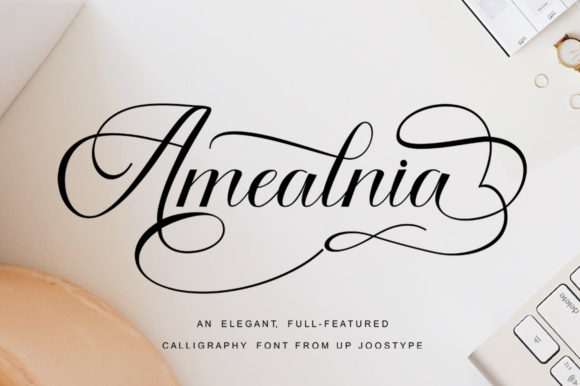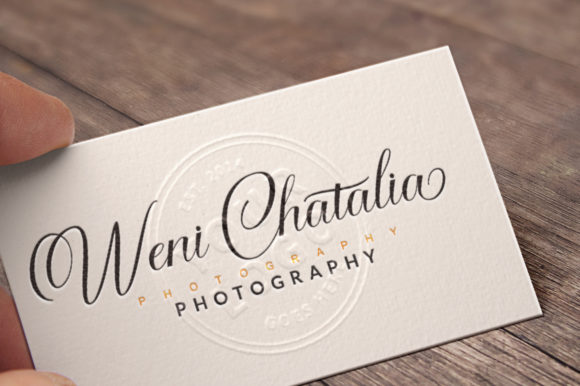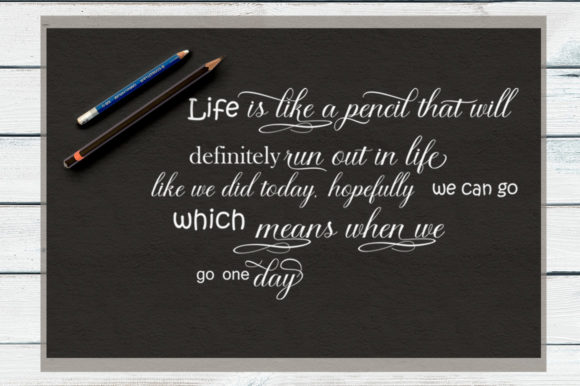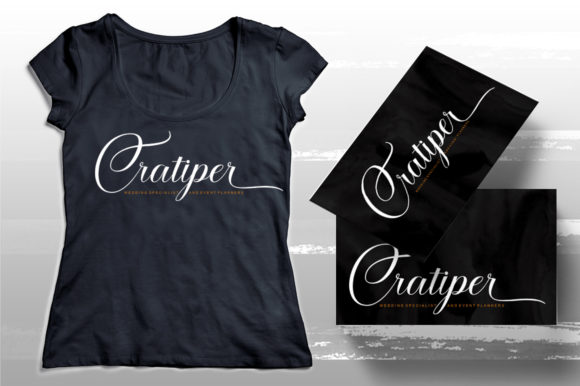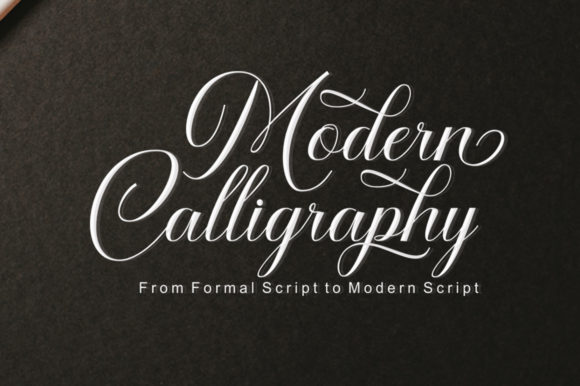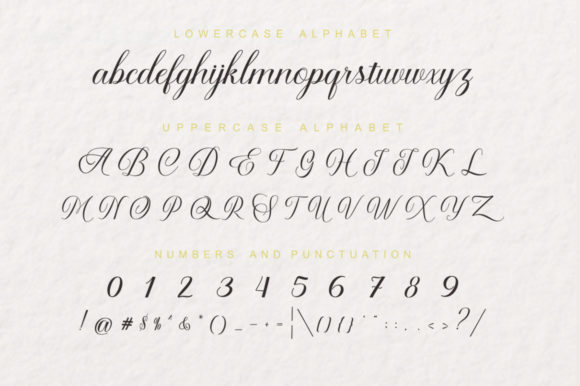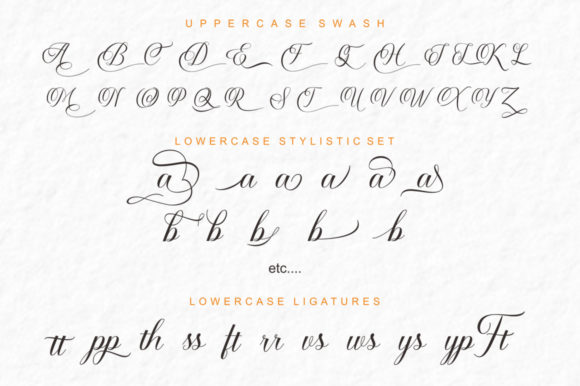
Amealnia Font
About Amealnia Font
Amealnia is a modern and trendy handwritten font. It has an elegant and classic feel and comes with incredible swashes that will give your designs a unique look.